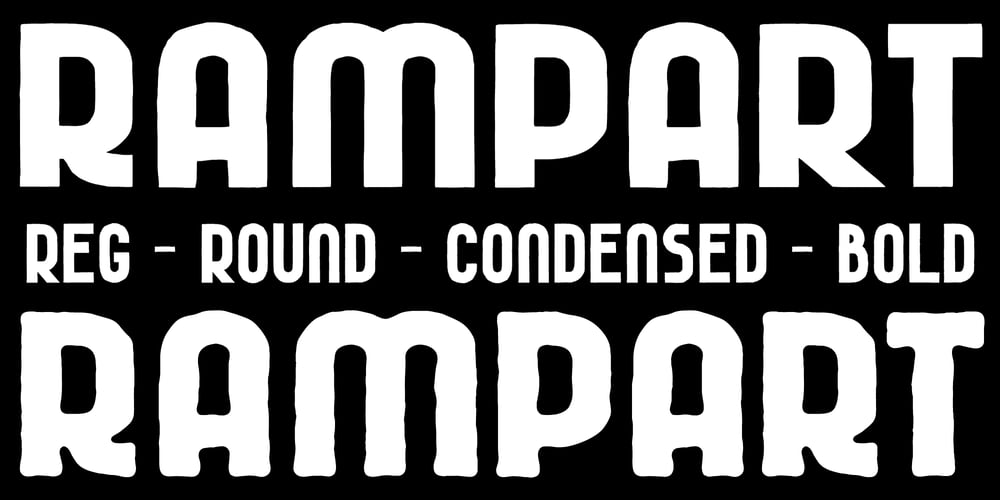
TC Rampart Font Family was designed by Tom Chalky and published by Tom Chalky. TC Rampart contains 8 styles and family package options. Meet Rampart – A Handcrafted Sans Family with Bold CharacterI’m pleased to introduce my latest workhorse, Rampart; A distinctly handmade family that has been designed to bridge the gap between rugged authenticity and modern sans-serif utility.Perfectly imperfect, its organic texture and bold structure make it ideal for everything from standout headlines to retro-inspired posters.With multiple styles—Regular, Bold, Condensed, and Round—it’s a versatile bunch that can adapt to your creative needs. Whether you’re crafting a vintage logo, quirky branding, or eye-catching promotional materials, Rampart has your back.I hope you enjoy its unique blend of boldness and charm as much as I do!